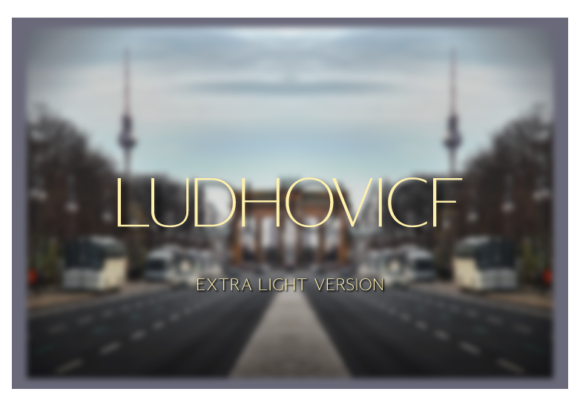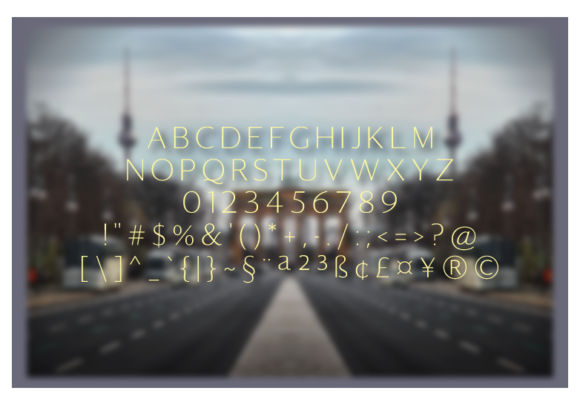
HomeSans Serif FontsLudhovicf Extra Light Font Sans Serif Fonts Ludhovicf Extra Light Font FacebookXPinterestWhatsApp Ludhovicf Extra Light Font 1 of 2 About Ludhovicf Extra Light Font Ludhovicf blends traditional Spanish architectural elements with modern, minimalist design. Its unique cut-ins & curves make it a true standout! DOWNLOAD ON CREATIVE FABRICAThis font is sold and delivered by Creative Fabrica. Font Canyon may earn a commission if you buy through this link. People also explored Woodle Font Monday Mandala Font Popular Lemonade Font Almayda Font Cybernetic Font Higanbana Font Syarmilla Font Joyfull Summer Font Cooper Font 352 0 TagsLudhovicf Extra Light Font Previous articleLudhovicf Light FontNext articleLudhovicf Thin Font LEAVE A REPLY Cancel reply Comment: Please enter your comment! Name:* Please enter your name here Email:* You have entered an incorrect email address! Please enter your email address here Website: Save my name, email, and website in this browser for the next time I comment. Personal Use Free DREXS Personal Use Free Read more about this font Pinky Personal Use Free Read more about this font Vanity Personal Use Free Read more about this font Alinda Personal Use Free Read more about this font BLOG Elegant Wedding Invitation Fonts – Handwritten & Script Fonts Elegant Wedding Invitation Fonts Your wedding day is one of the most important moments of your life, and every detail matters—including your invitation design. Our... How to Install and Use Fonts on Windows, macOS, and Web Projects To increase your work productivity, choose the most readable fonts. Where to Buy American Fonts Online in 2024